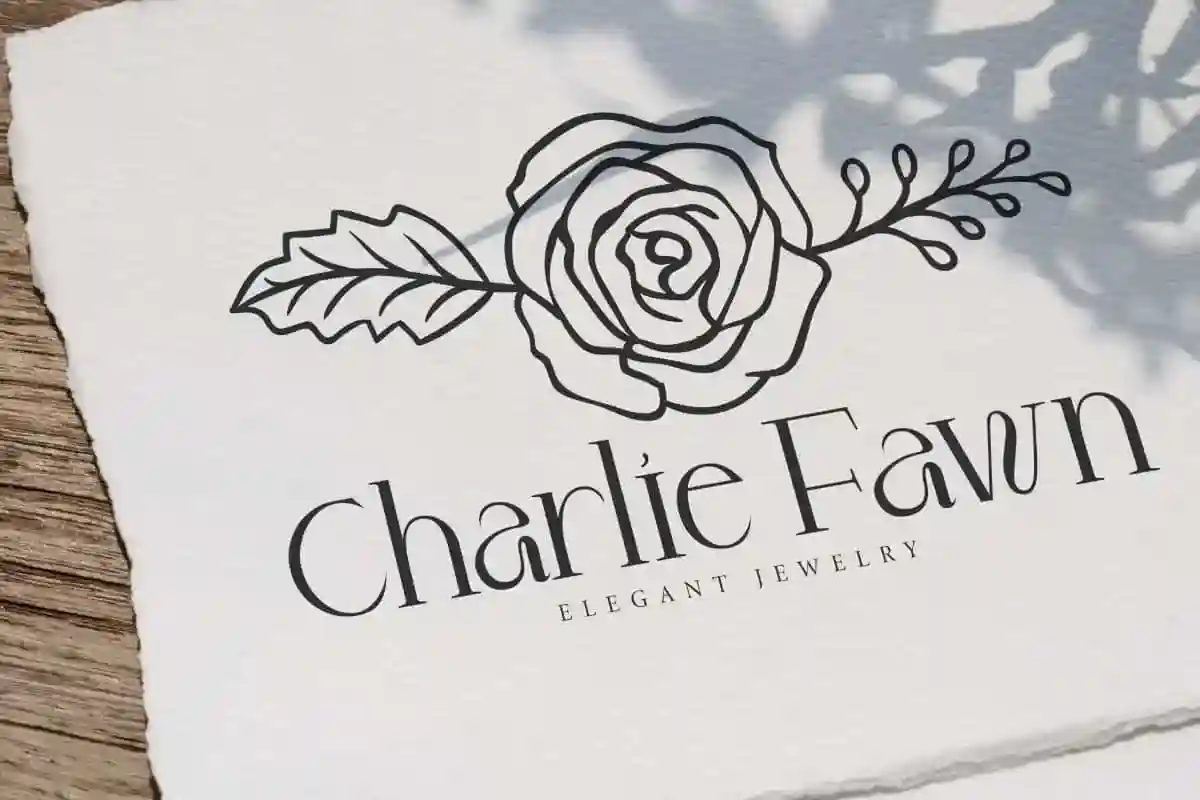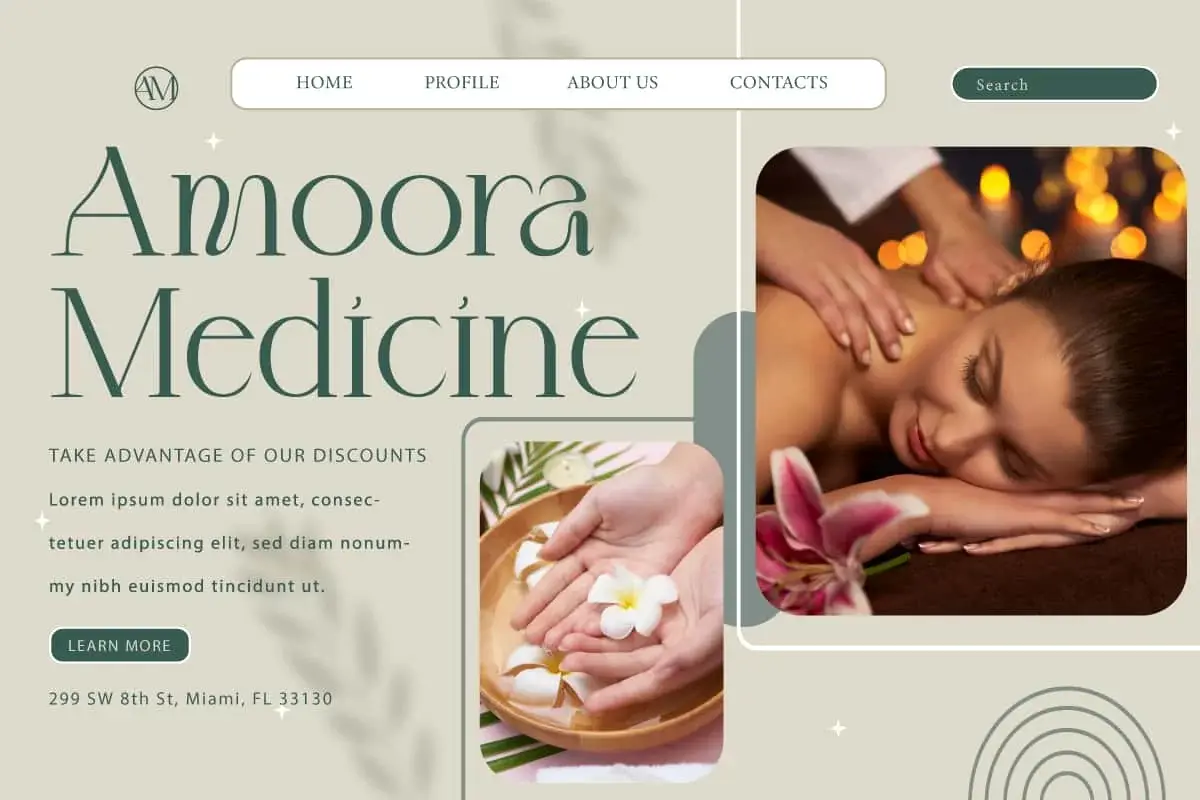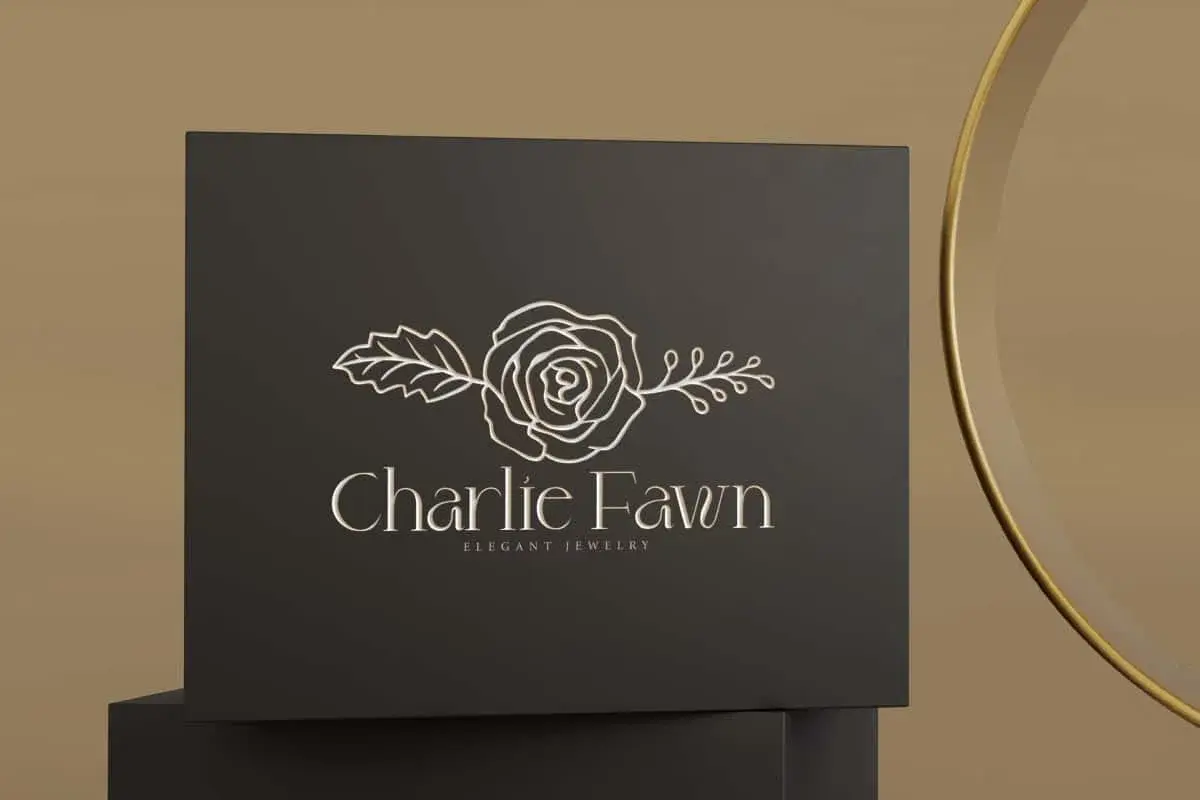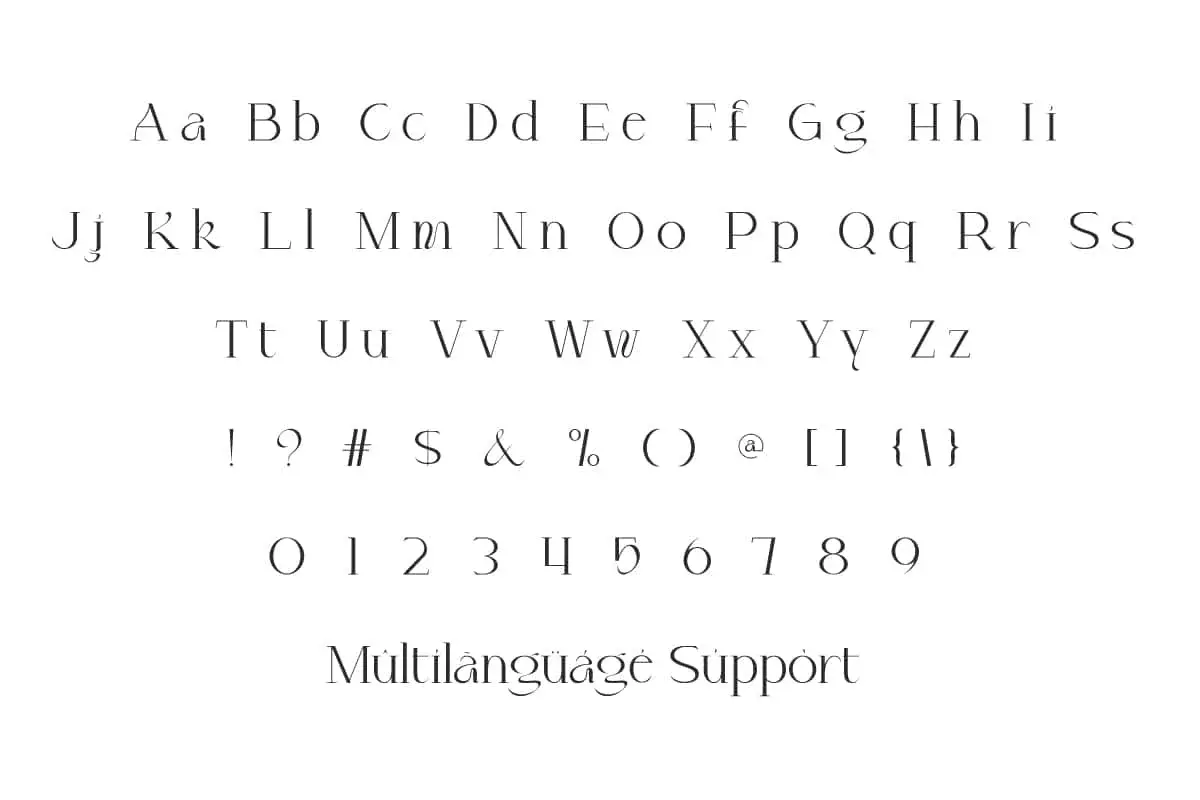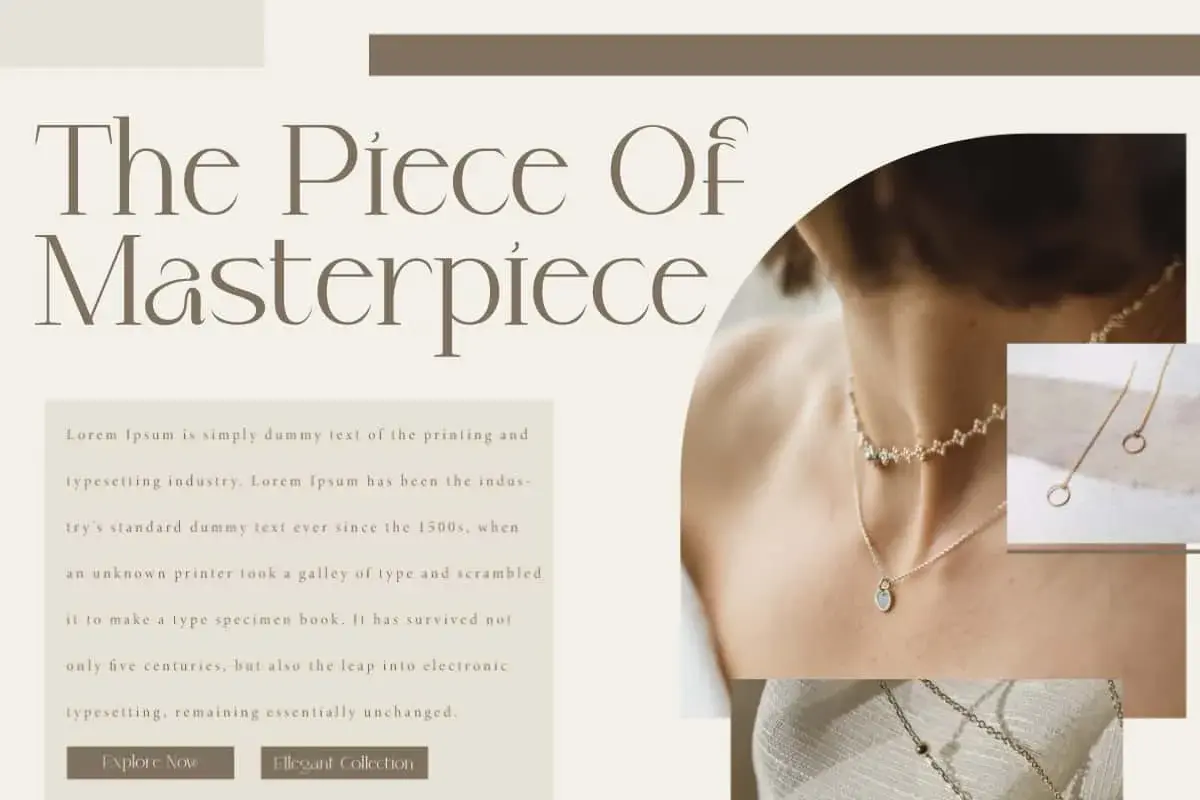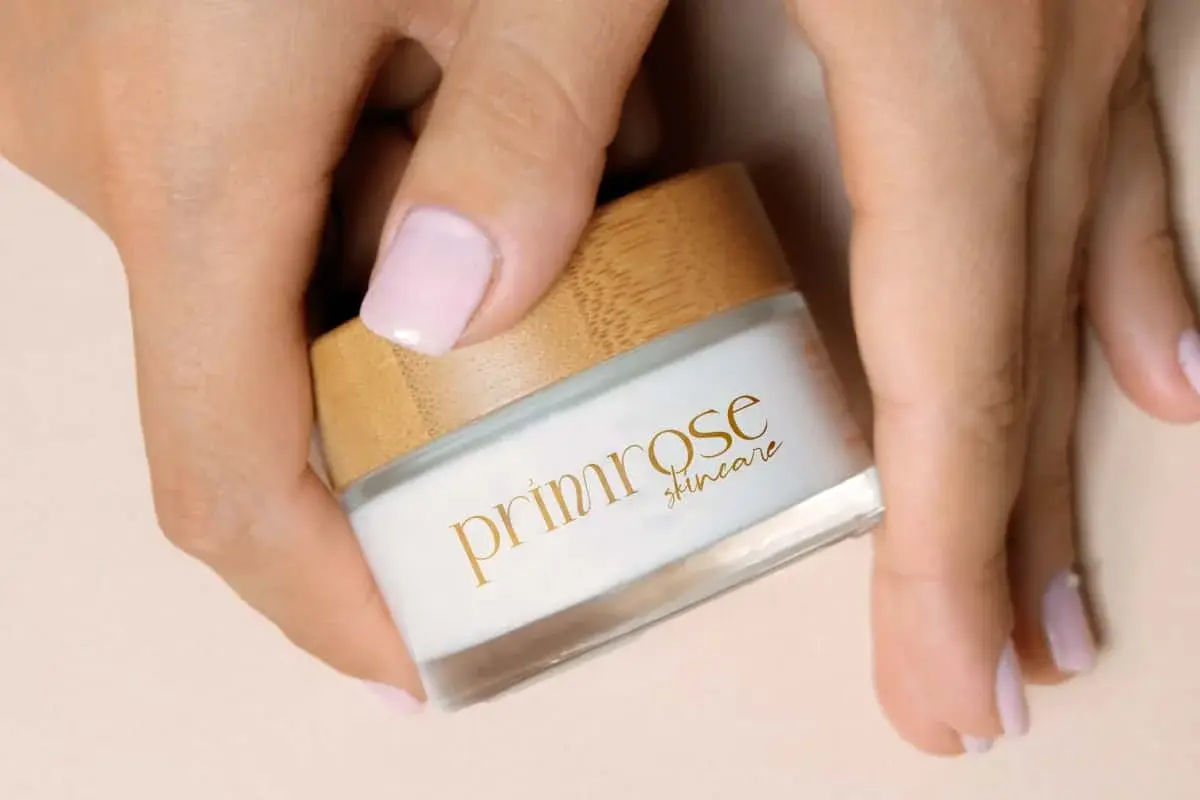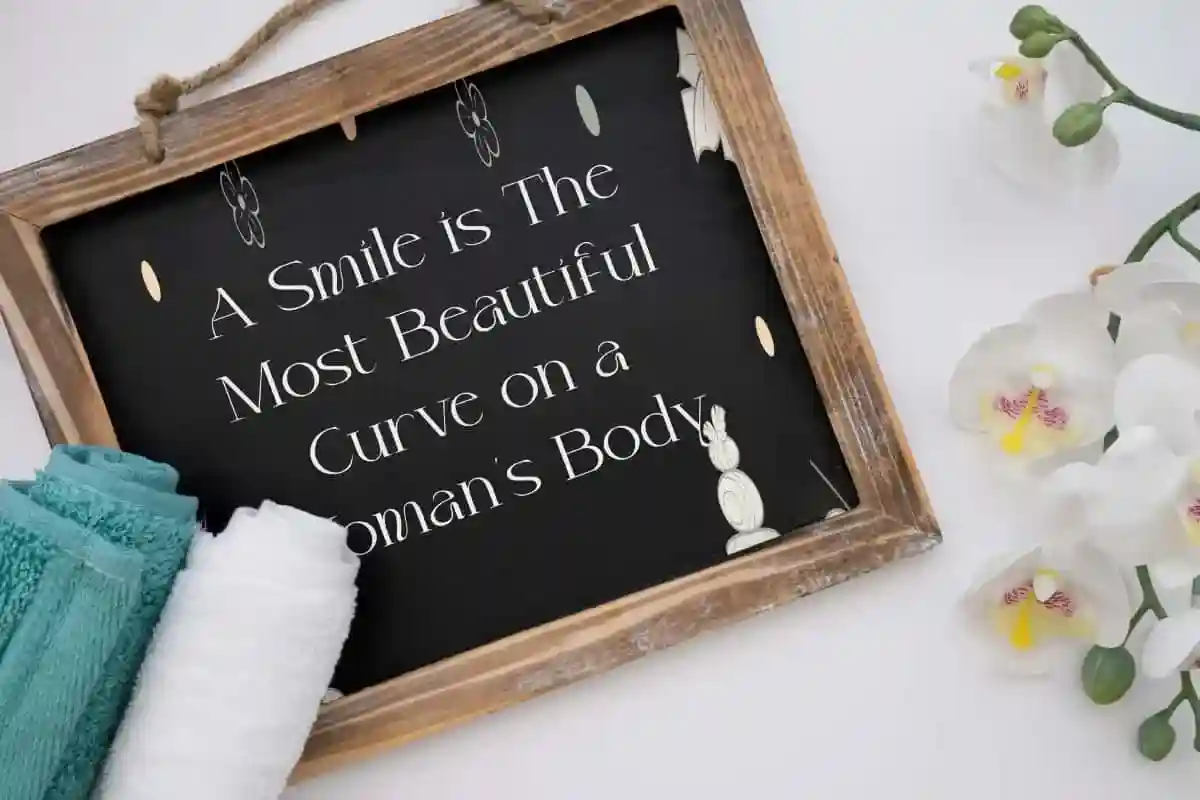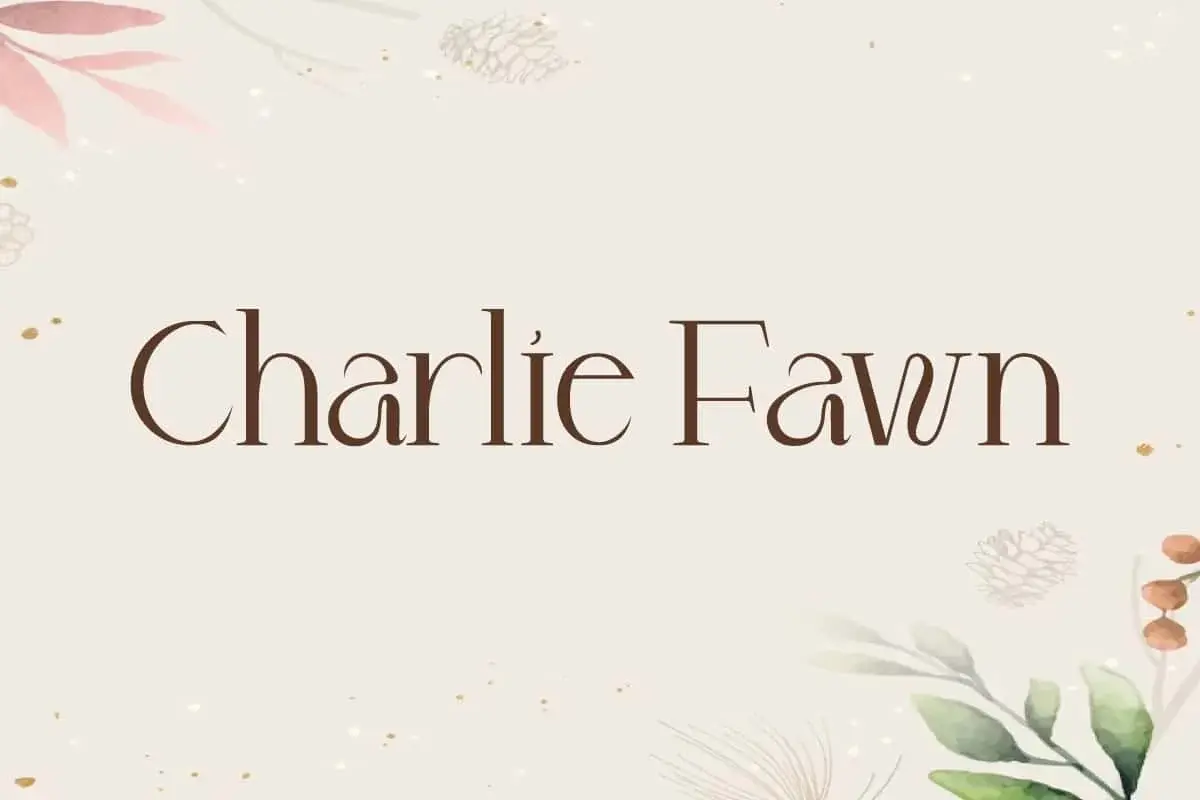
Charlie Fawn Font is a gorgeous serif display font. The distinct appeal of the letters with a classy touch will make all your branding logo and anything else feel premium.
Charlie Fawn Font is an elegant serif typeface with a fashionable feel. This sleek and unique font can contribute to a modern brand’s appeal. You can use this for any creative design, such as banners, branding, brochure, labels, logos, magazines, mockup design, packaging, posters, quotes, stickers, watermarks, website, and more.
Charlie Fawn Font contains a complete set of basic Uppercase and Lowercase characters, Numbers, Symbols and Punctuation. The appearance of this modern and luxurious font has its own charm. Bringing a touch of sophistication and ensuring versatility for all your creative needs. This font can be used for jewelry stores, skincare, spa, etc.